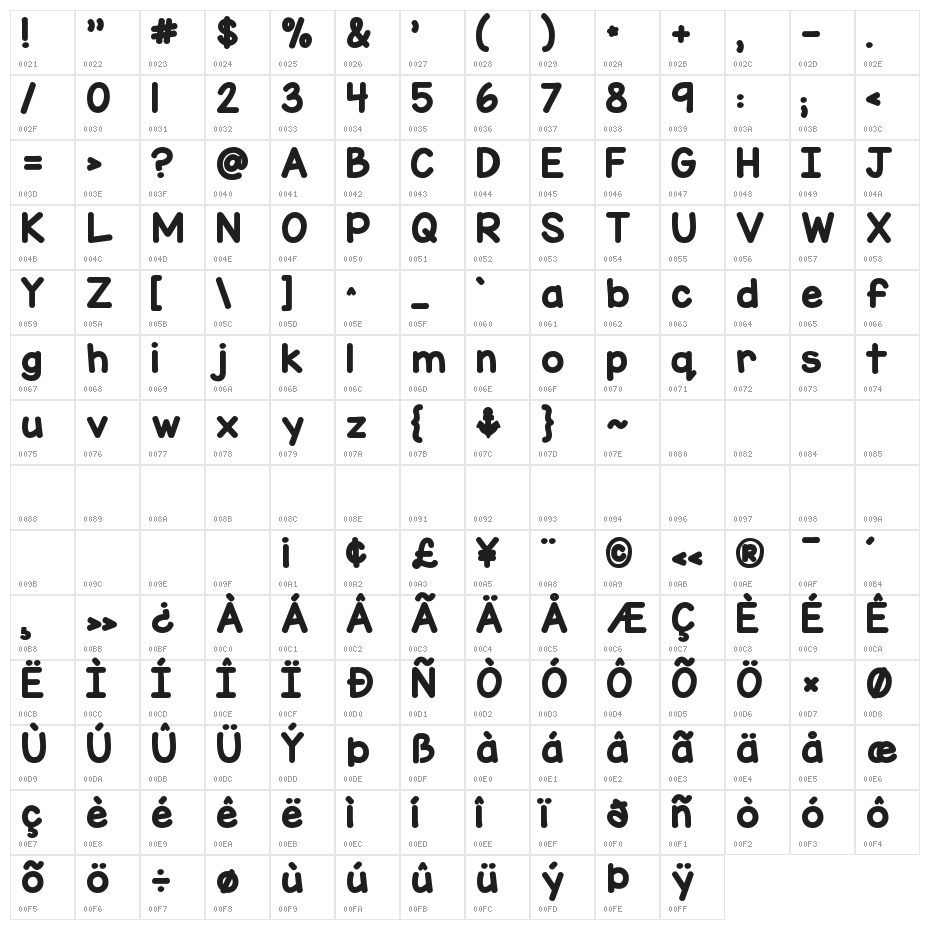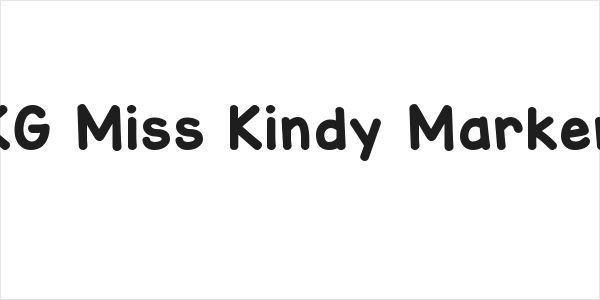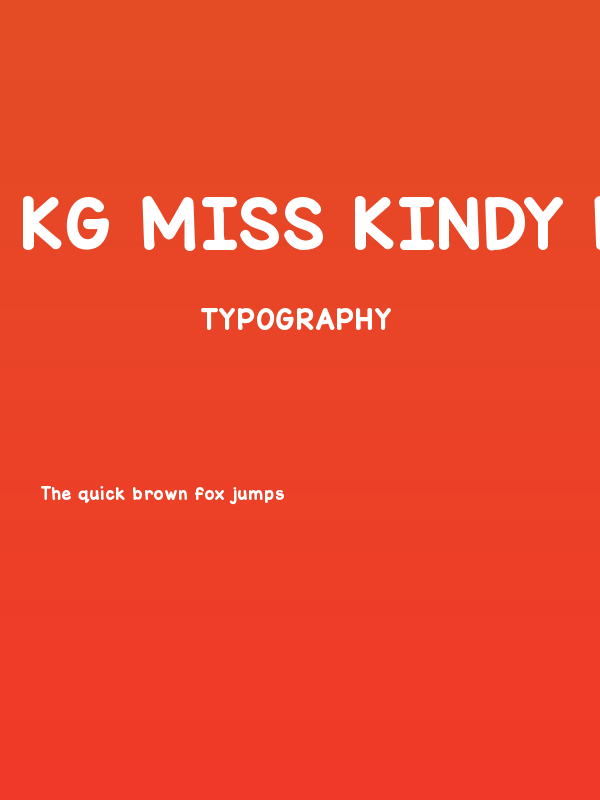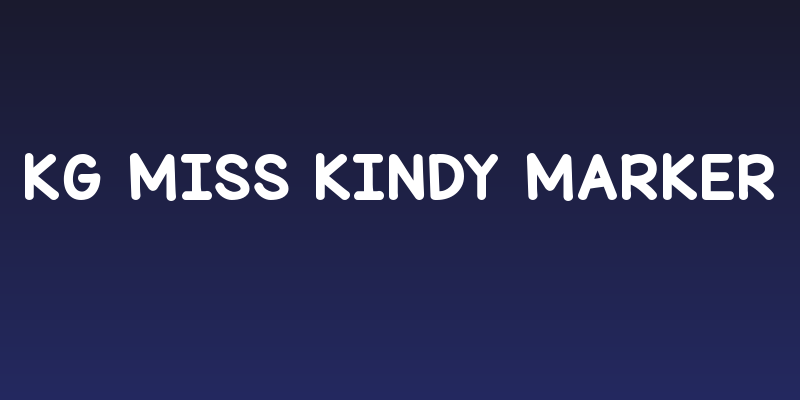
KG Miss Kindy Marker Font
KG Miss Kindy Marker Description
This playful and bold font features rounded edges and a hand-drawn aesthetic, reminiscent of a child's handwriting. The characters are thick and evenly weighted, giving them a friendly and approachable appearance. The uppercase and lowercase letters maintain a consistent style, with a slight variation in size that adds to the whimsical feel. The numbers and special characters are designed to match the overall playful theme, making them suitable for creative and informal projects. The font's simplicity and charm make it ideal for use in children's books, educational materials, and playful branding.
| Use Case | Headlines, Logos, Children's books |
| Proposed Projects | Ideal for children's books, educational materials, playful branding, and creative projects. |